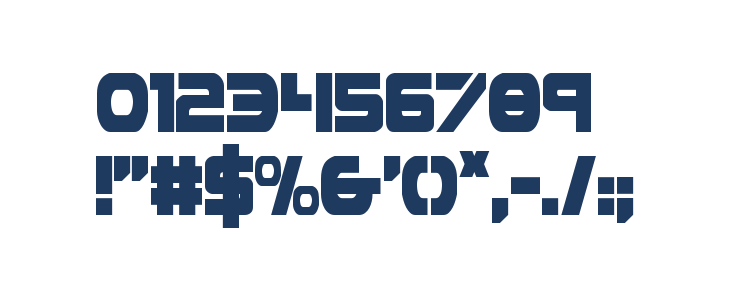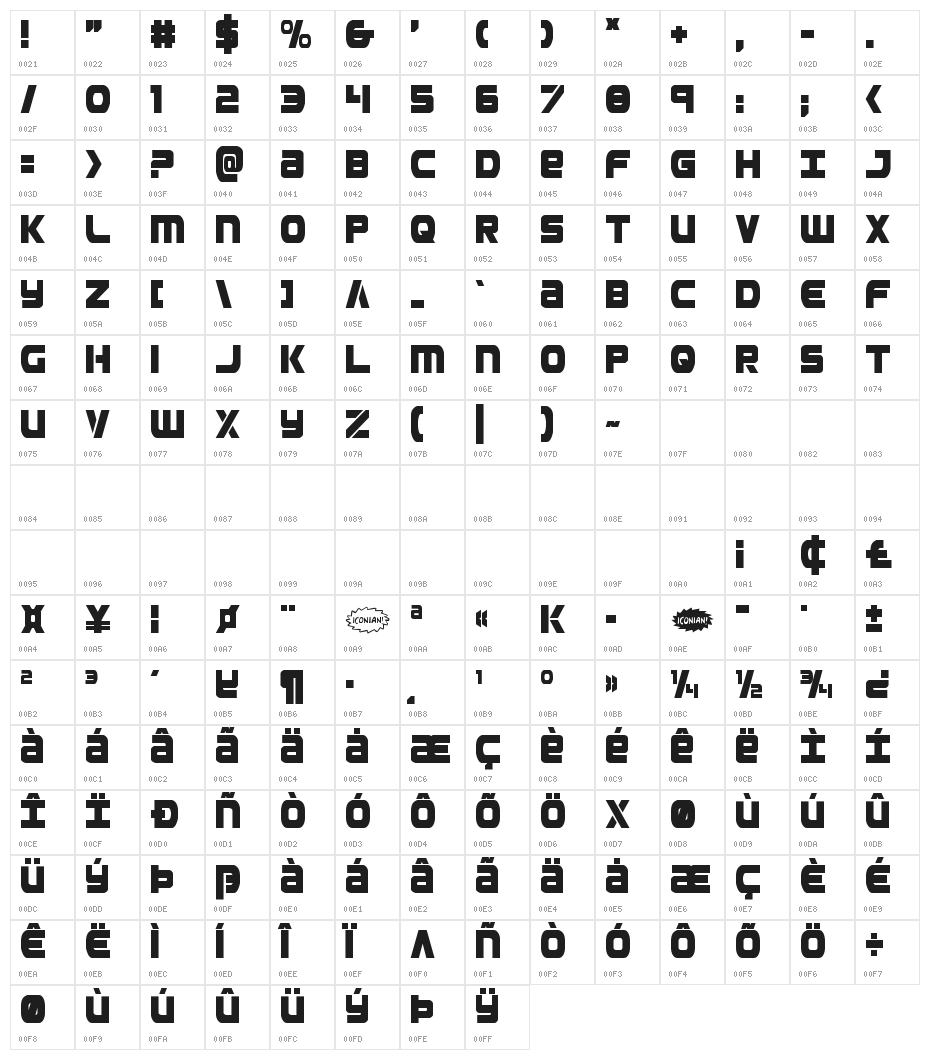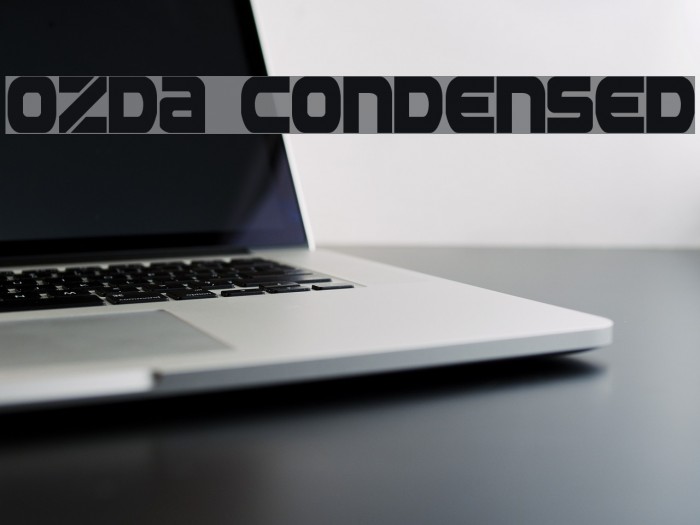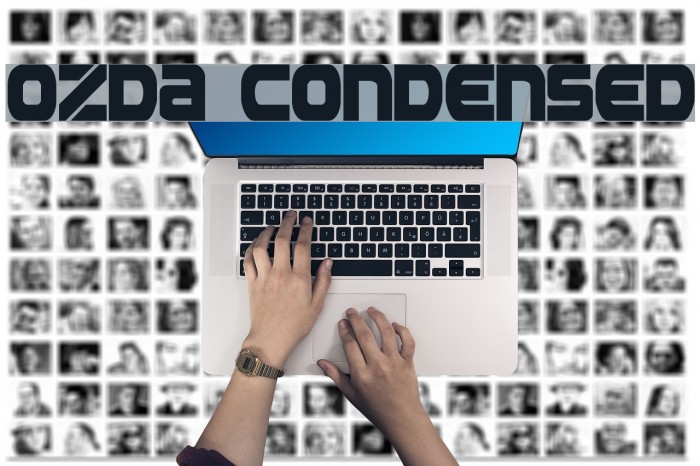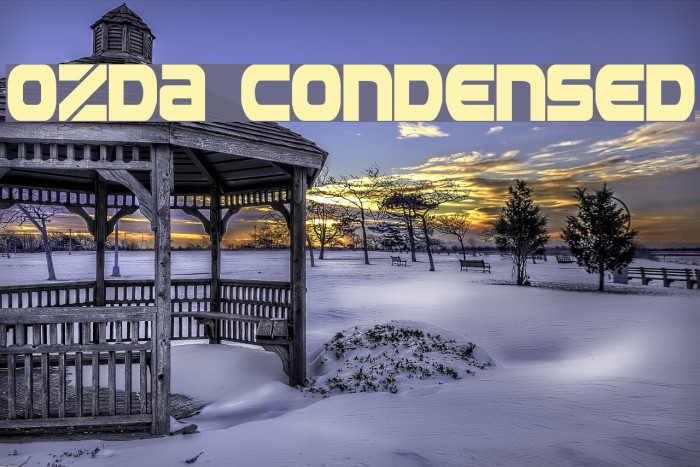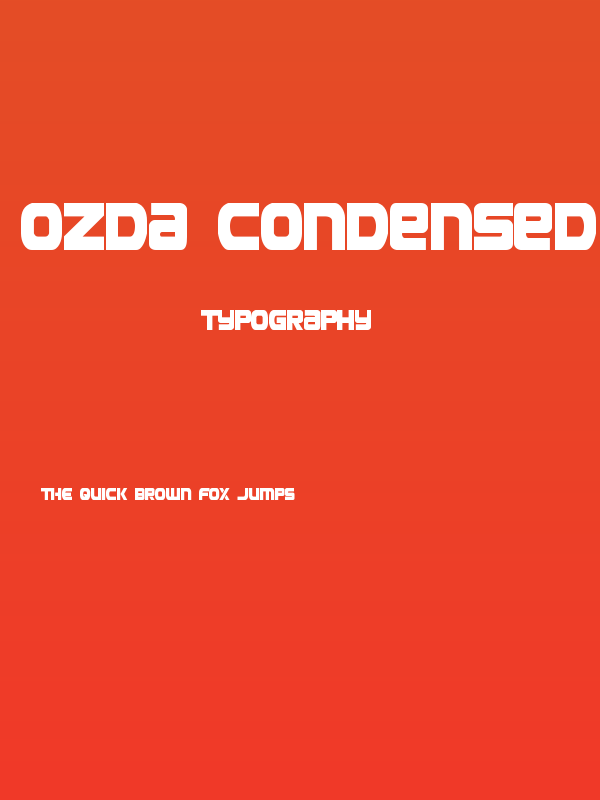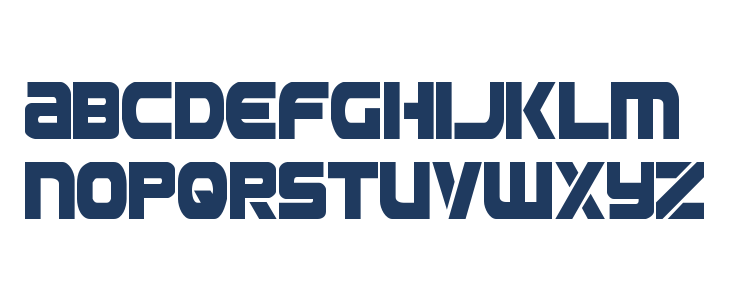
Ozda Condensed Font
Ozda Condensed Description
This font features a bold and geometric design with a distinctly modern and futuristic appeal. The characters are condensed, creating a compact and impactful look. The strokes are thick and consistent, giving the font a strong presence. The angular shapes and sharp edges contribute to its dynamic and assertive style, making it suitable for attention-grabbing headlines and display purposes. The uniformity in stroke width and the absence of serifs enhance its clean and contemporary appearance.